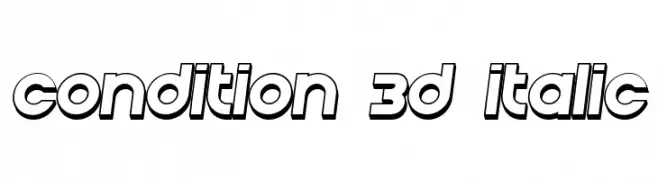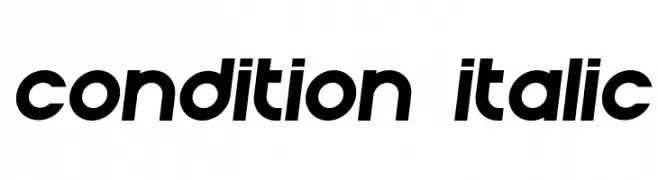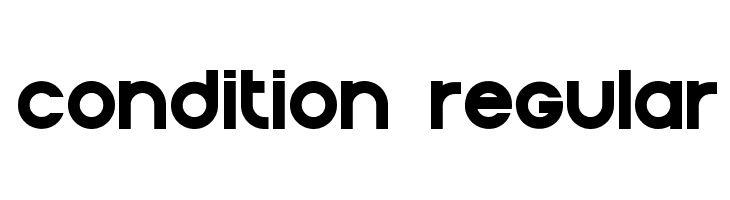
A bold, geometric font with a modern and clean design.
A bold, italic font with a modern and dynamic style.
A bold, 3D, filled italic font with a modern and dynamic style.
A bold, playful 3D font with rounded characters and a consistent stroke width.
A bold, 3D italic font with outlined characters and a modern, dynamic style.
A bold, outlined, and slightly condensed italic font with a playful, three-dimensional look.
A bold, outlined font with a modern and playful style.
A bold, shadowed font with a three-dimensional, modern look.
A bold, geometric font with a modern and impactful style.
A bold, italic font with a dynamic and modern style.